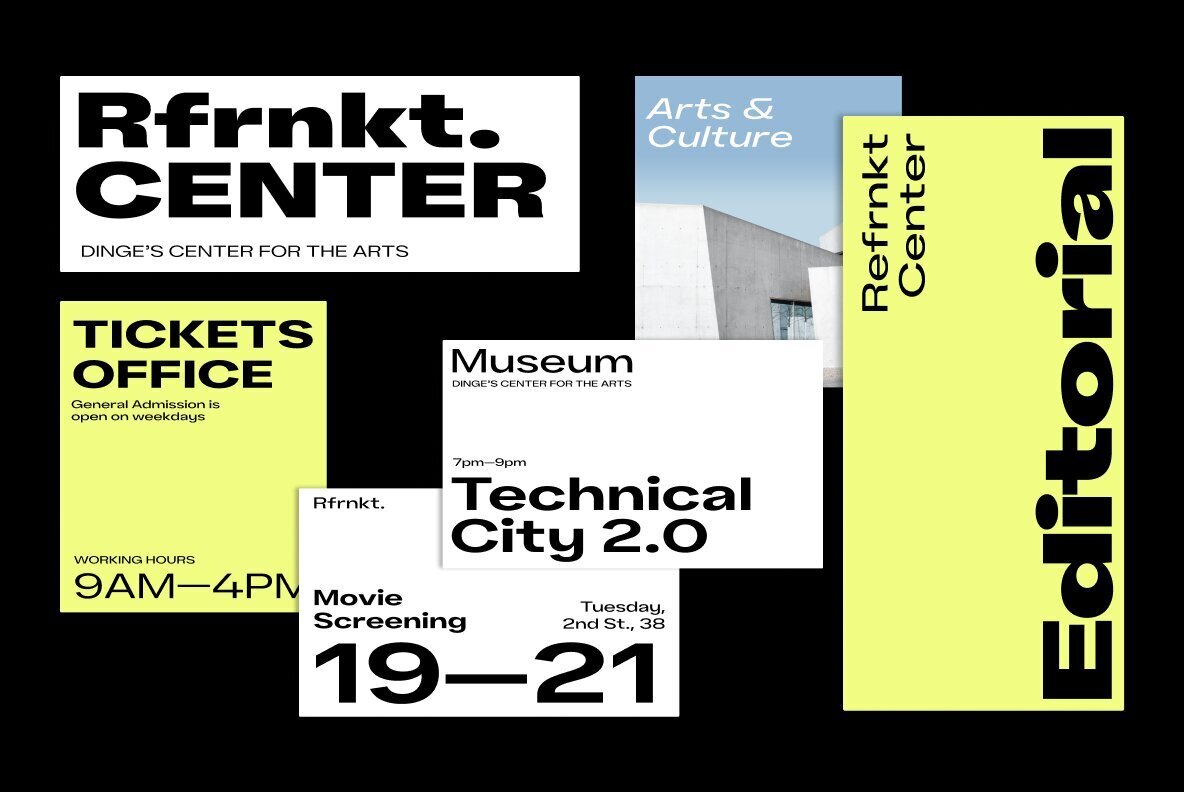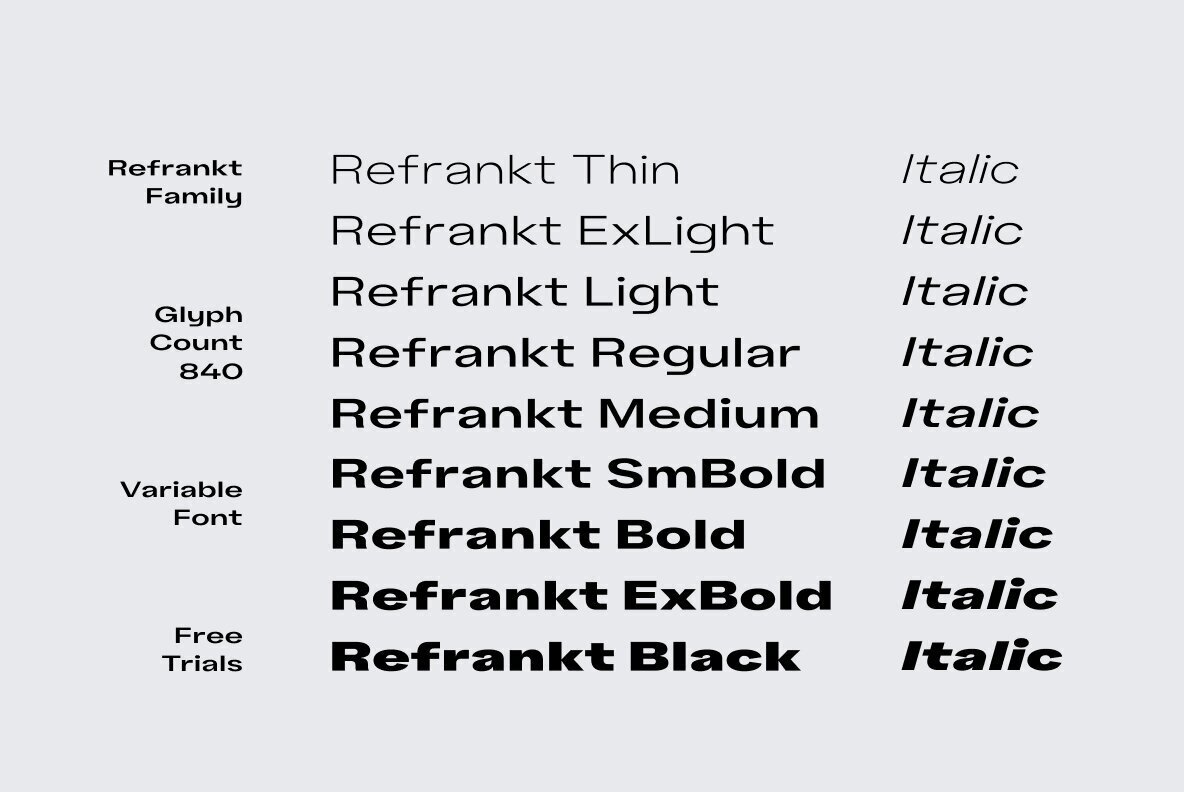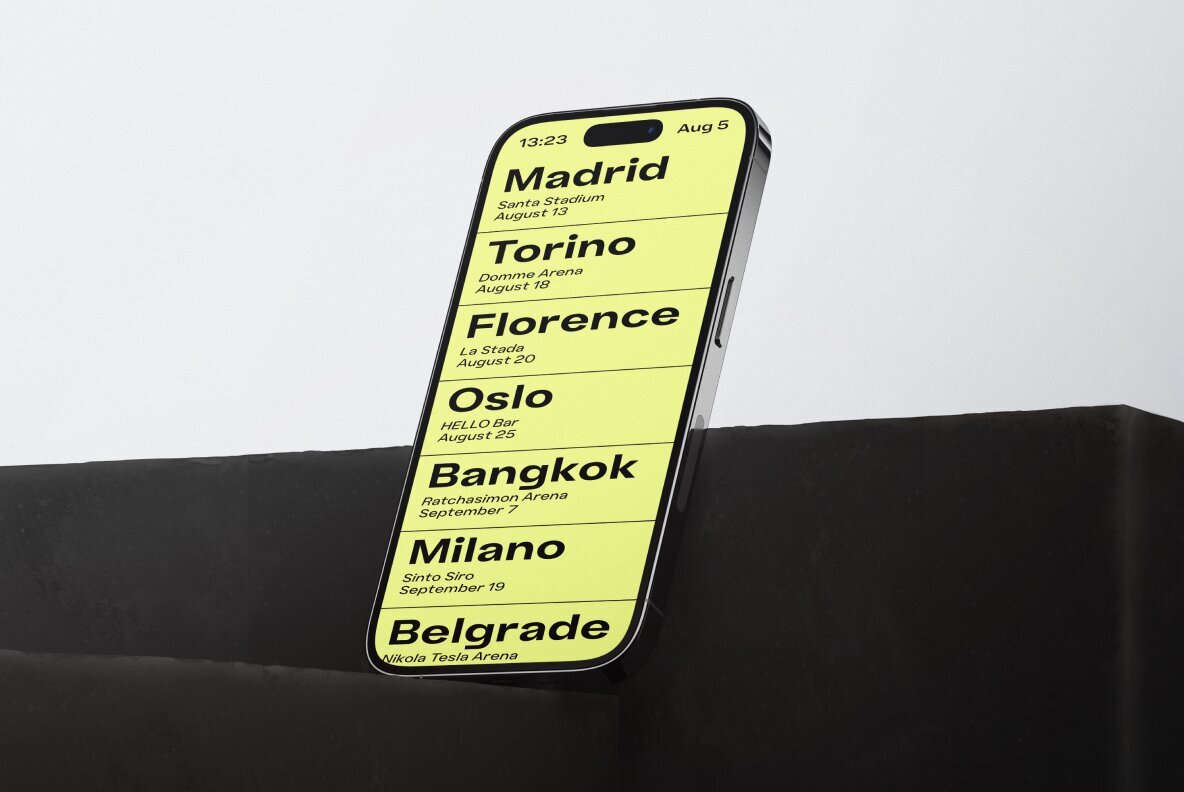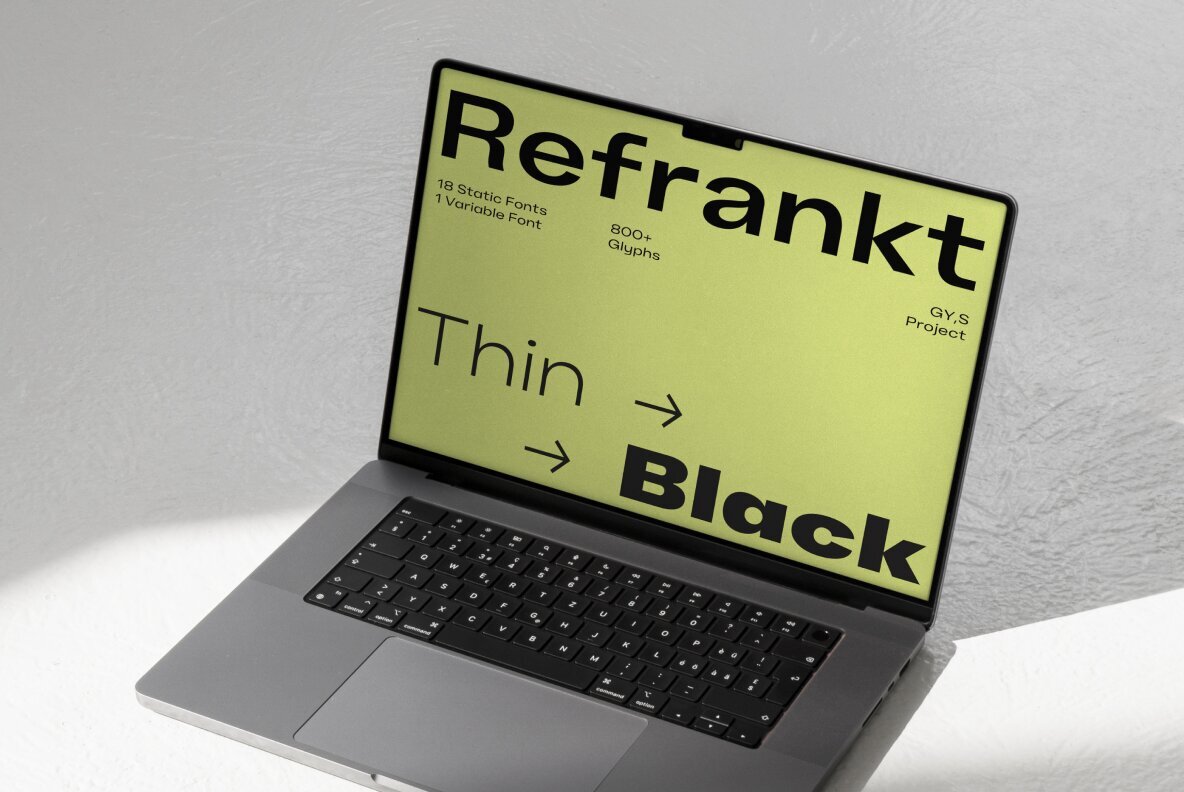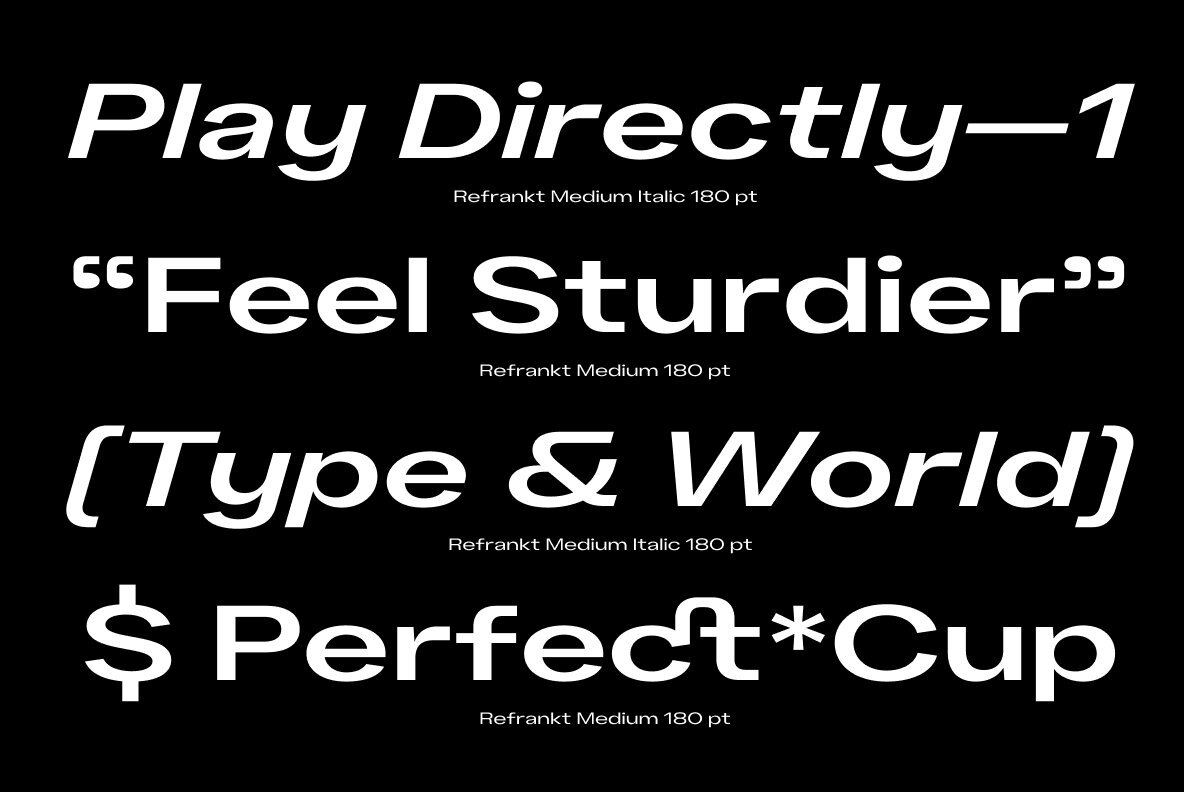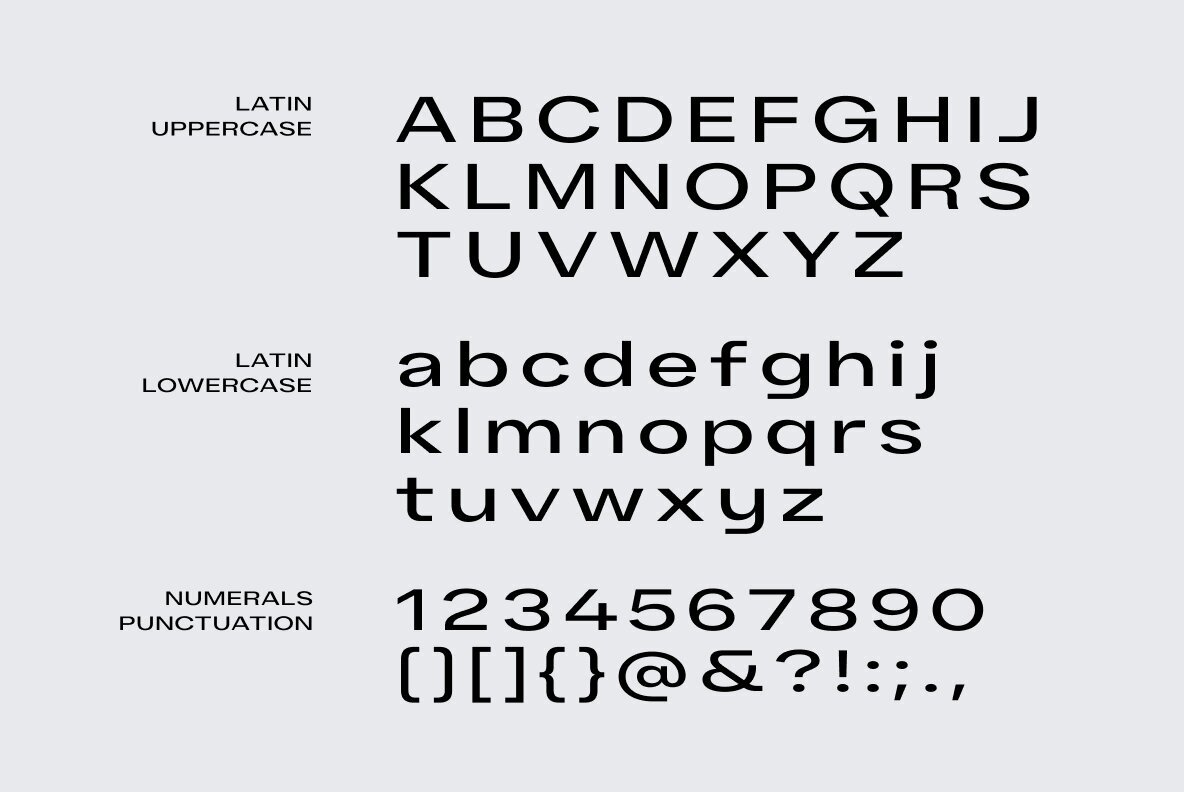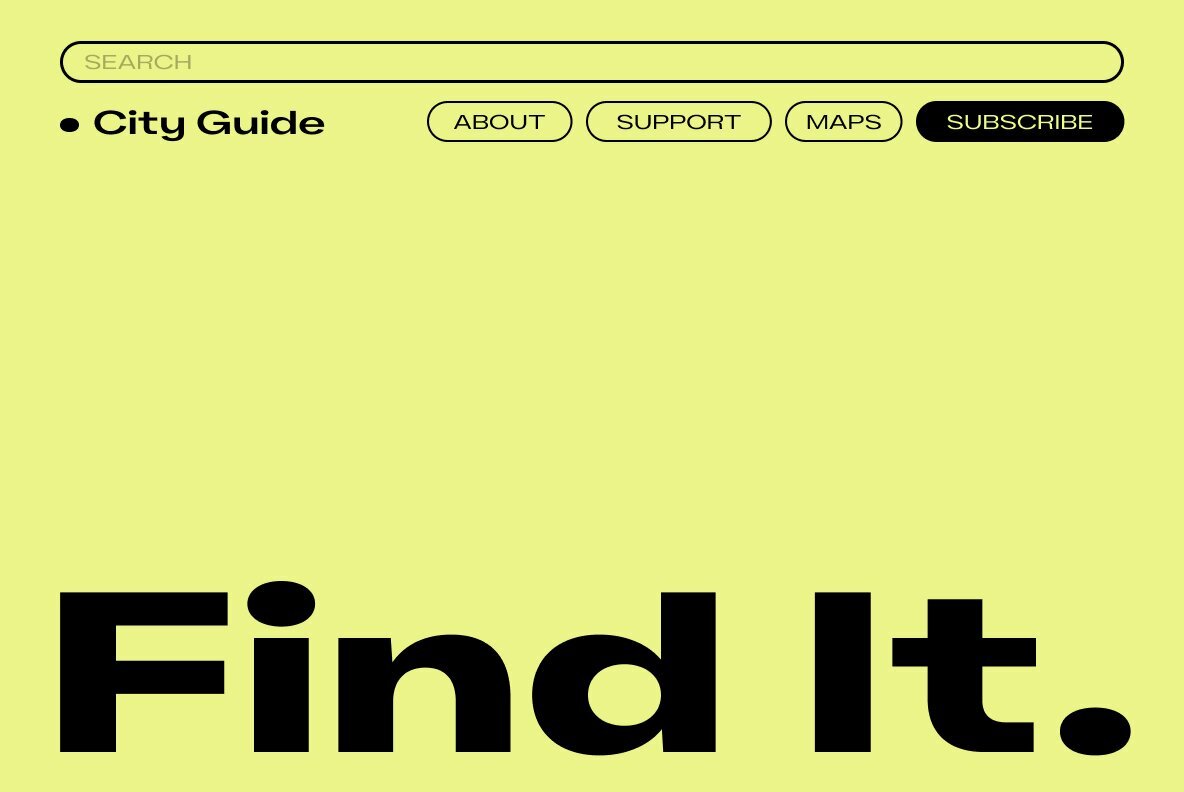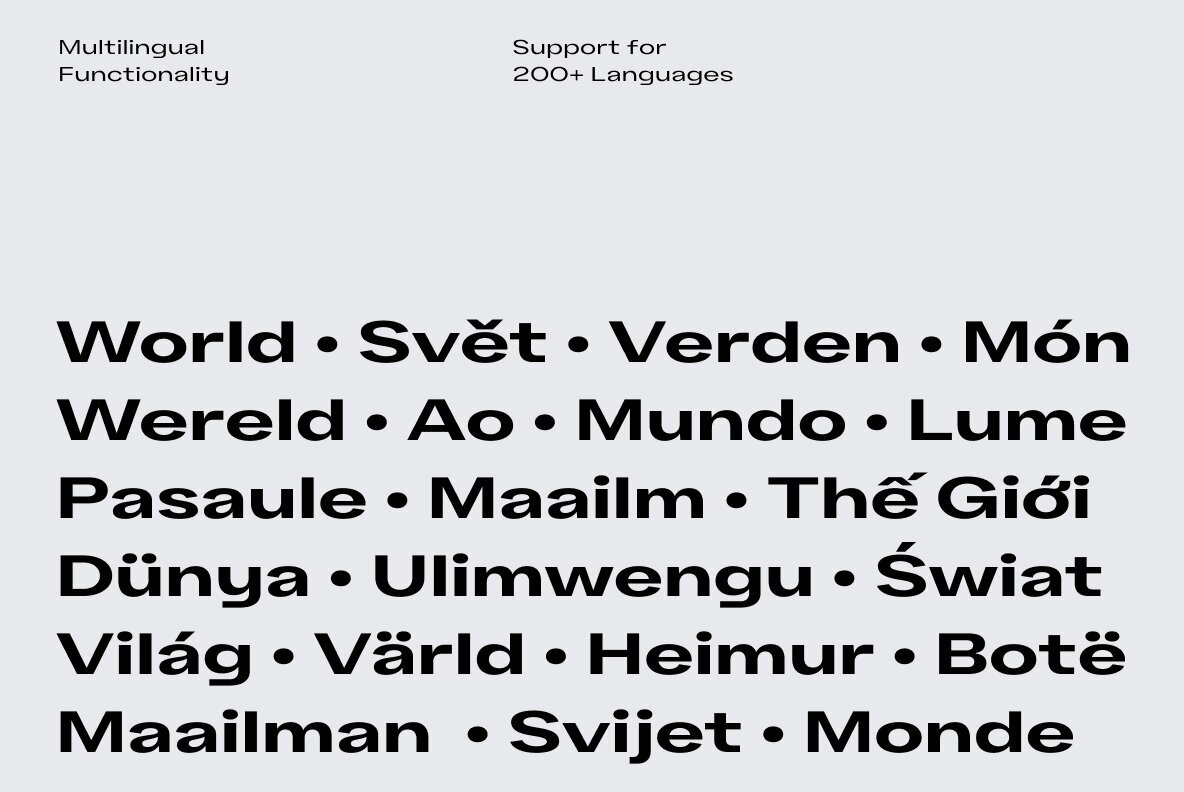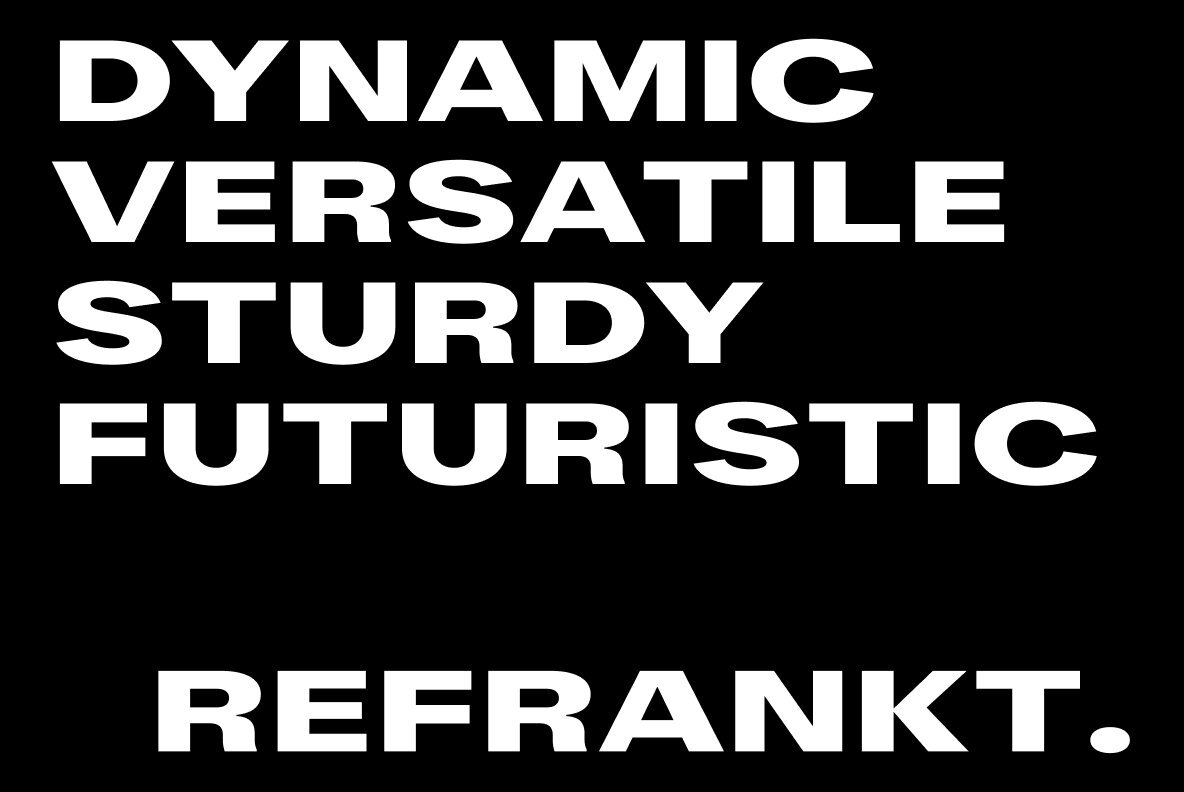
Refrankt Font
Refrankt is a multifunctional sans serif type family in 18 styles, ranging from Thin to Black with matching italic, as well as a variable font. The key visual feature of Refrankt is its extra wide letters and expanded proportions, which accentuate the character of the type family and extend its application. Refrankt works well as a display font but can also be used comfortably in headings and larger bodies of text. Refrankt offers a clean and thoughtful take on the functional grotesque sans-serif style and can be used in a wide variety of projects, from UI/UX design to packaging and branding. It can also be employed as a font for logos and word marks. Whether you're looking for bold, sturdy letterforms, futuristic feel or dynamic flexibility, Refrankt readily adapts to any task. Refrankt would look at home in projects related to technology, athletics, industrial design and many more. The functionality of Refrankt is defined by its multilingual support (200+ languages) and its extensive OpenType features, such as Case-Sensitive Punctuation and Stylistic Alternates, among many others. In addition to a standard set of figures, Refrankt includes tabular figures, old-style figures, superiors, inferiors, and fractions. The entire character set comprises over 800 glyphs. Features: